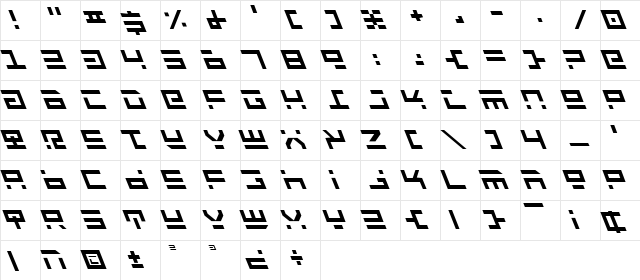
Rocket Type Leftalic Leftalic
Design Context for Rocket Type Leftalic Typeface
Rocket Type Leftalic is a composed and adaptable typeface that performs quietly and consistently across a wide range of design contexts. The dynamic lean of this cut emphasises speed and emphasis in any layout.
Pro Tip: Use Rocket Type Leftalic for emphasis, pull quotes, and subheadings where its slanted energy can add rhythm to the layout.